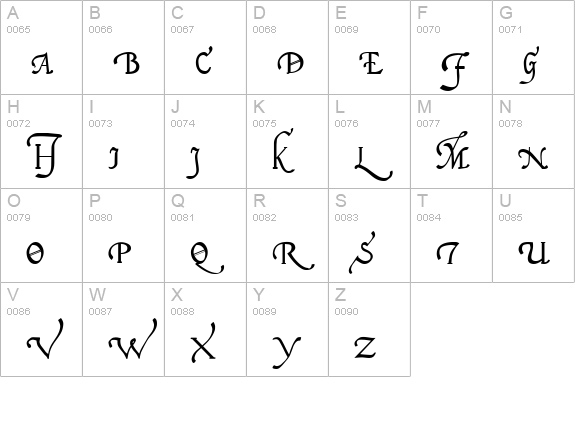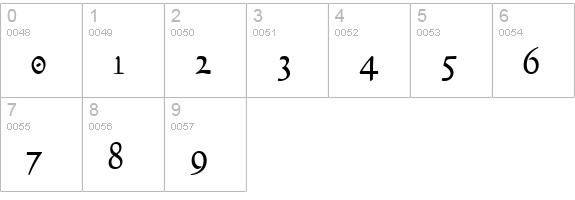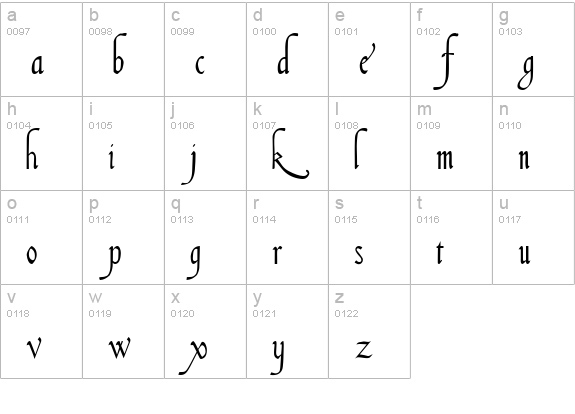
Italian Cursive 16th c. Font Details
Italian Cursive 16th c. font is a stunning and elegant typeface that beautifully captures the essence of the Italian Renaissance era. With its flowing and graceful curves, this font exudes a sense of sophistication and timeless beauty. This font is reminiscent of the handwriting style prevalent in 16th-century Italy, known for its sweeping strokes and intricate details. Each letter is carefully crafted to reflect the artistry and craftsmanship of the period, making it a perfect choice for projects that require a touch of historical authenticity. Italian Cursive 16th c. font is exceptionally versatile, lending itself well to a wide range of design applications. Whether you are creating invitations, branding materials, book covers, or even wedding stationery, this font will add a touch of elegance and refinement to your work. One of the most appealing aspects of Italian Cursive 16th c. font is that it is freely available to download at FontsMarket.com. This means that you can easily incorporate this exquisite typeface into your projects without any restrictions or limitations. Whether you are a professional designer or an aspiring artist, the accessibility of this font allows you to bring your creative visions to life with ease. The attention to detail and the delicate craftsmanship of Italian Cursive 16th c. font sets it apart from other fonts in its category. The seamless flow of each letter and the intricate ligatures make it a joy to work with, adding a touch of elegance and refinement to any design. If you are looking to evoke a sense of timeless beauty and sophistication in your designs, Italian Cursive 16th c. font is the perfect choice. Its free availability at FontsMarket.com makes it an invaluable resource for designers and artists alike. Download this font today and let its graceful curves and intricate details elevate your designs to new heights of aesthetic excellence.